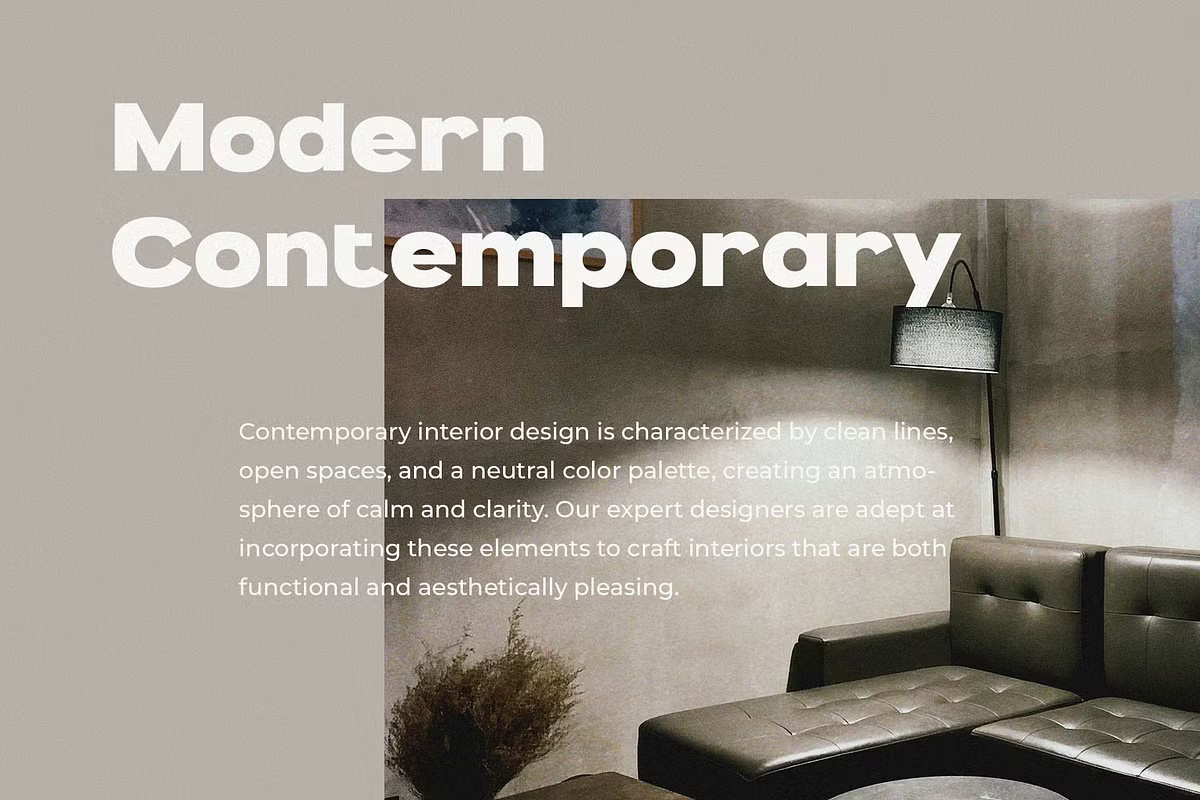
Ghiremi Font
Ghiremi is a modern, bold sans-serif font designed by Typeformers. With its sturdy structure and confident stance, it makes a striking choice for headlines. Despite its bold presence, Ghiremi carries a playful and approachable character, making it an excellent fit for brands that embrace joy, boldness, and positivity.
This typeface shines in digital spaces, particularly for gaming and tech-related designs, and works beautifully in advertising and headlines.